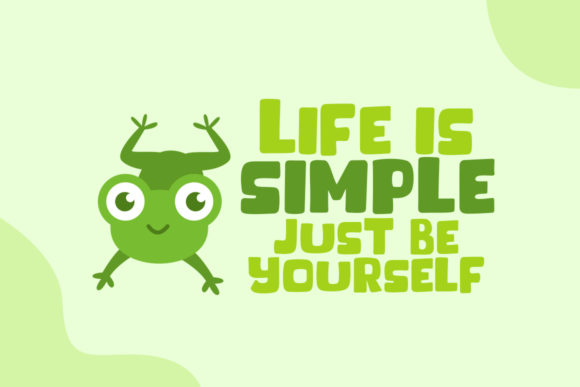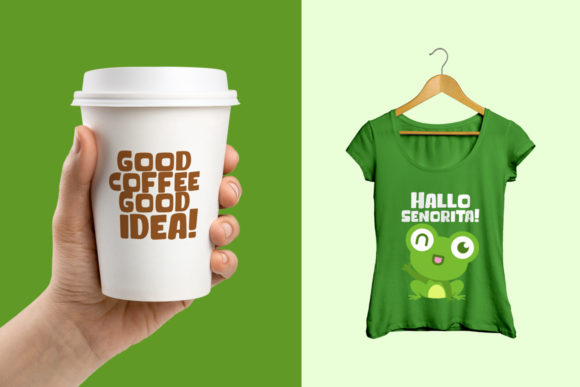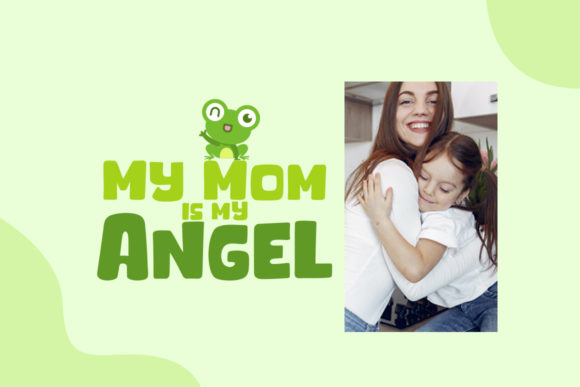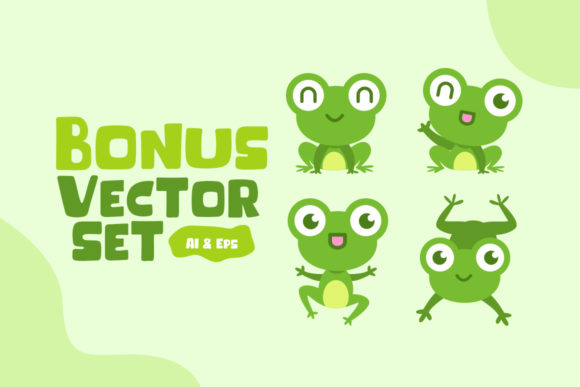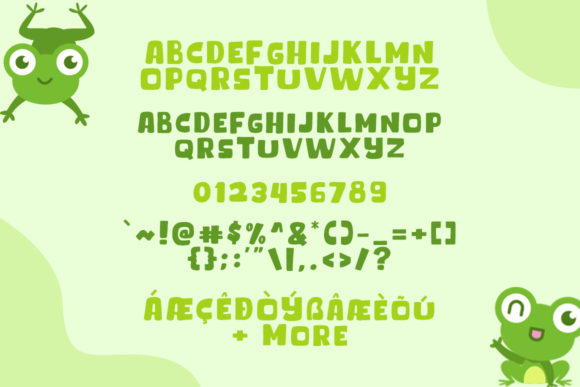
Introducing Green Frog Font: The Perfect Blend of Cuteness and Versatility
In the world of typography, fonts play a crucial role in conveying the tone and personality of a brand or design. Among the numerous fonts available, the Green Frog Font stands out for its unique blend of cuteness, fun, and versatility. This display font is carefully crafted to become a true favorite among designers, crafters, and anyone looking to add a touch of whimsy to their projects.
The Charm of Green Frog Font
Green Frog Font boasts a casual charm that makes it appear wonderfully down-to-earth and readable. Its friendly and approachable demeanor is perfect for designs that require a playful and non-formal touch. Whether you’re working on a children’s book, a craft project, or a brand identity, this font is sure to bring a smile to your audience’s faces.
Key Features of Green Frog Font
- Cute and Fun Design: Green Frog Font is designed to be visually appealing, with a playful and fun vibe that sets it apart from more traditional fonts.
- Highly Readable: Despite its playful nature, this font remains highly readable, making it suitable for use in a variety of applications, from body text to headings.
- Versatile: Green Frog Font is incredibly versatile, allowing you to use it in a wide range of projects, from digital designs to print materials.
- Easy to Use: This font is easy to use and pairs well with a variety of other fonts, making it a great addition to any designer’s toolkit.
Use Cases for Green Frog Font
Green Frog Font’s versatility makes it suitable for a wide range of applications, including:
- Children’s Books and Educational Materials: The font’s playful and fun design makes it perfect for children’s books, educational materials, and other projects aimed at young audiences.
- Crafting and DIY Projects: Green Frog Font is a great choice for crafters and DIY enthusiasts looking to add a personal touch to their projects, such as handmade cards, gift tags, and more.
- Branding and Identity: This font can be used to create a friendly and approachable brand identity, perfect for businesses that want to convey a sense of fun and playfulness.
- Digital Designs: Green Frog Font can be used in digital designs, such as social media graphics, blog posts, and website headers, to add a touch of whimsy and personality.
Tips for Using Green Frog Font
To get the most out of Green Frog Font, here are a few tips to keep in mind:
- Pair it with Other Fonts: Experiment with pairing Green Frog Font with other fonts to create a unique and visually appealing combination.
- Use it in Headings and Titles: This font is perfect for use in headings and titles, where its playful and fun design can really shine.
- Experiment with Colors: Green Frog Font looks great in a variety of colors, so don’t be afraid to experiment and find the perfect hue for your design.
Green Frog Font is a unique and versatile display font that is sure to become a favorite among designers and crafters. Its casual charm, readability, and playfulness make it perfect for a wide range of applications, from children’s books to branding and digital designs. With its ease of use and flexibility, Green Frog Font is a great addition to any designer’s toolkit.